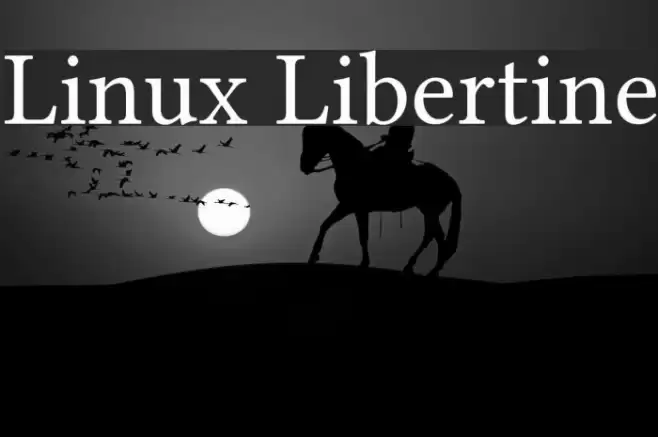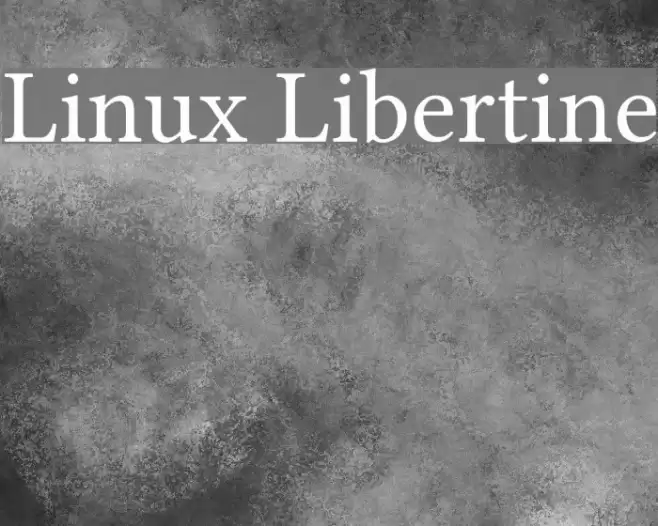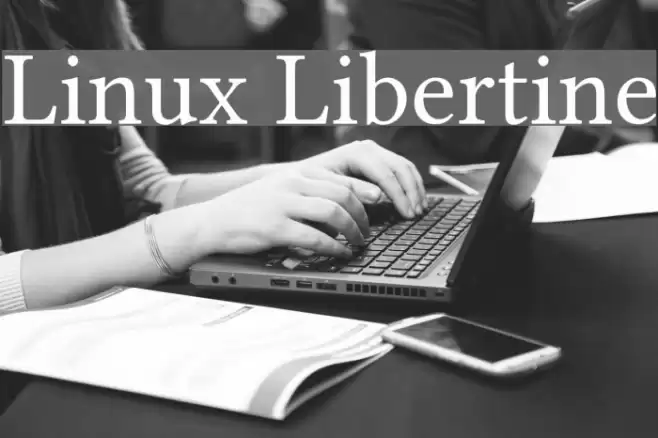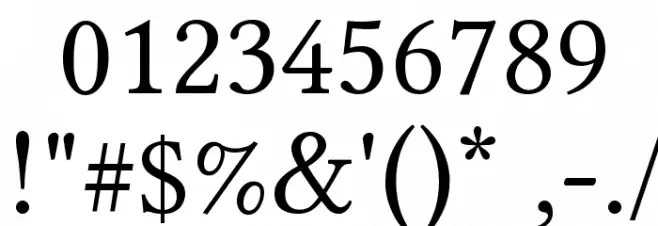
Linux Libertine Font
Linux Libertine Description
This font features a classic serif style with elegant and refined strokes, making it suitable for a wide range of applications. The characters exhibit a balanced proportion with moderate contrast between thick and thin strokes, enhancing readability while maintaining a sophisticated appearance. The serifs are well-defined, adding a touch of tradition and formality. The overall design is versatile, allowing it to be used effectively in both digital and print media. Its timeless appeal makes it a great choice for projects that require a touch of elegance and professionalism.
A classic serif font with elegant strokes and balanced proportions from Uncategorized fonts.
- Proposed Projects: Ideal for book typesetting, formal invitations, academic publications, and branding materials.
- Overall Style: Classic
- Use Case: Body text, Headlines, Print media